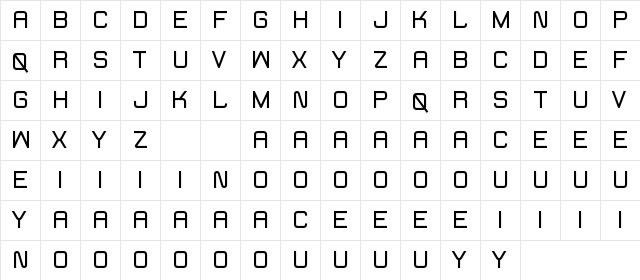
Fearcheer Demo Regular
Design Context for Fearcheer Demo Typeface
Fearcheer Demo offers clean, dependable letterforms without strong stylistic allegiance, making it a practical choice for designers who need flexibility.
Pro Tip: Use Fearcheer Demo in both headline and body roles to test its range before committing to a single application.